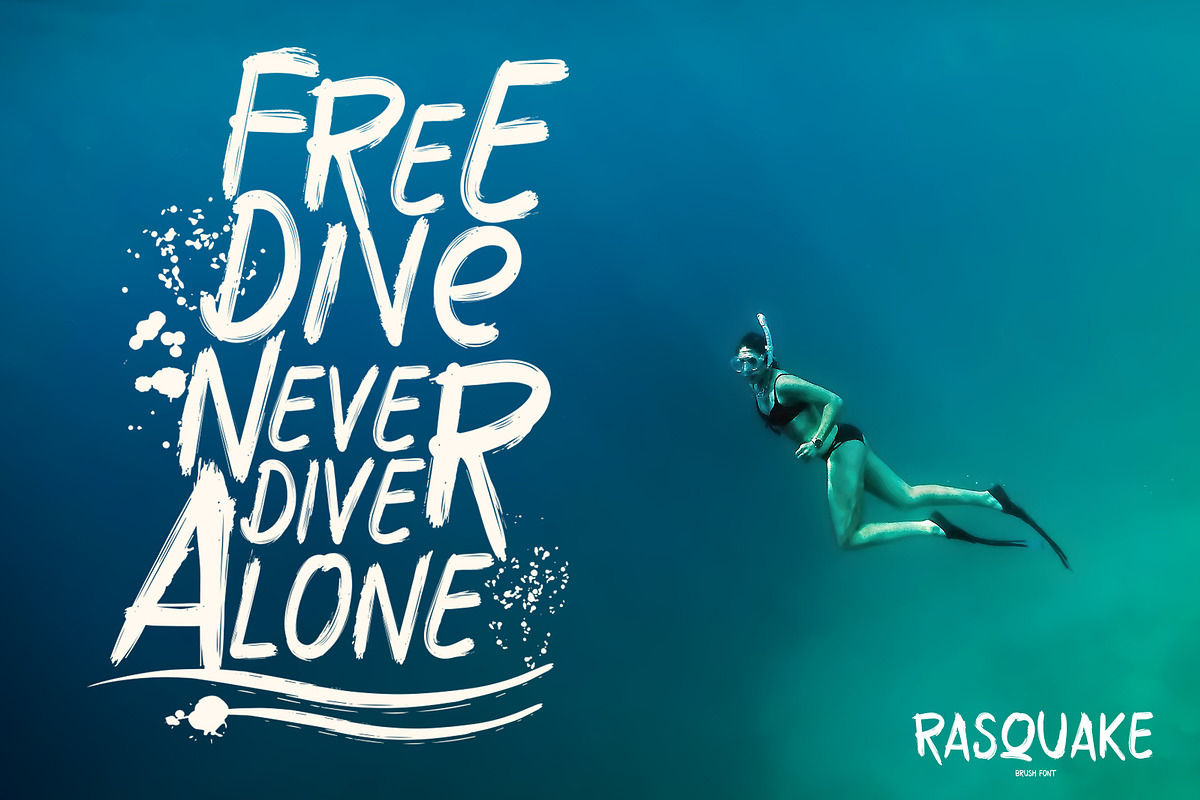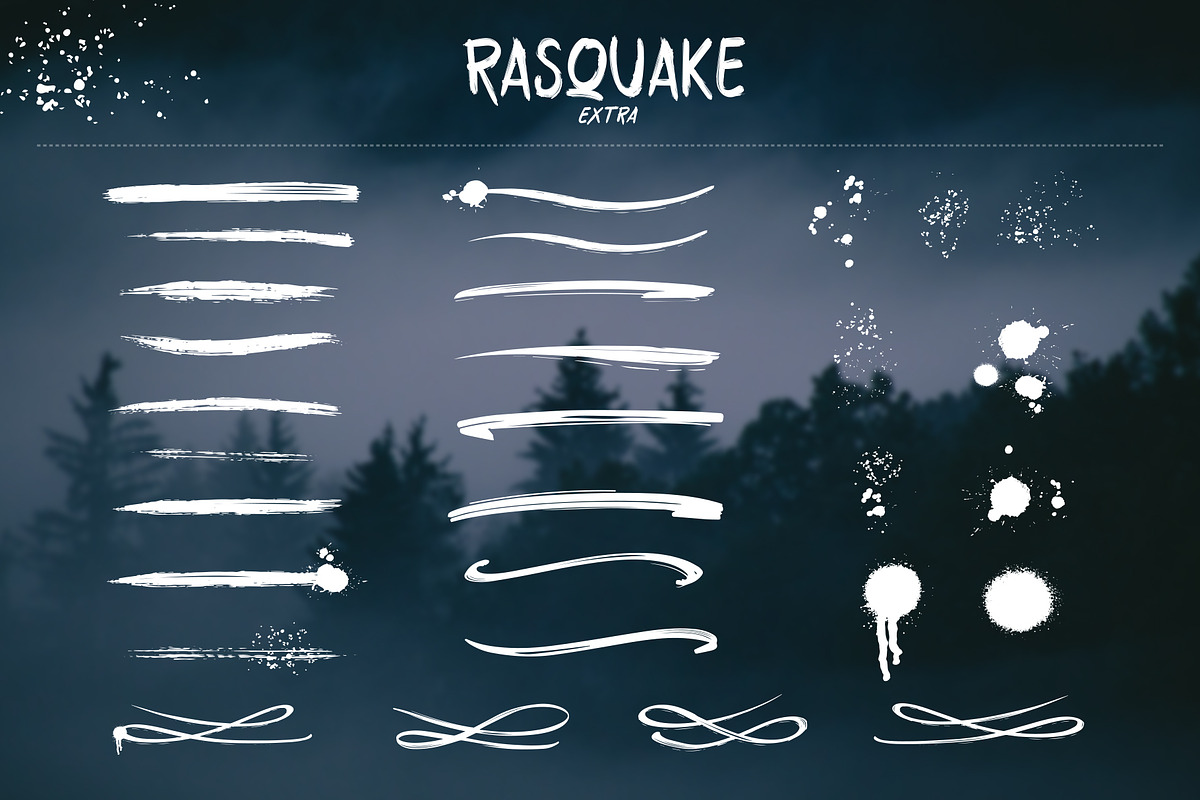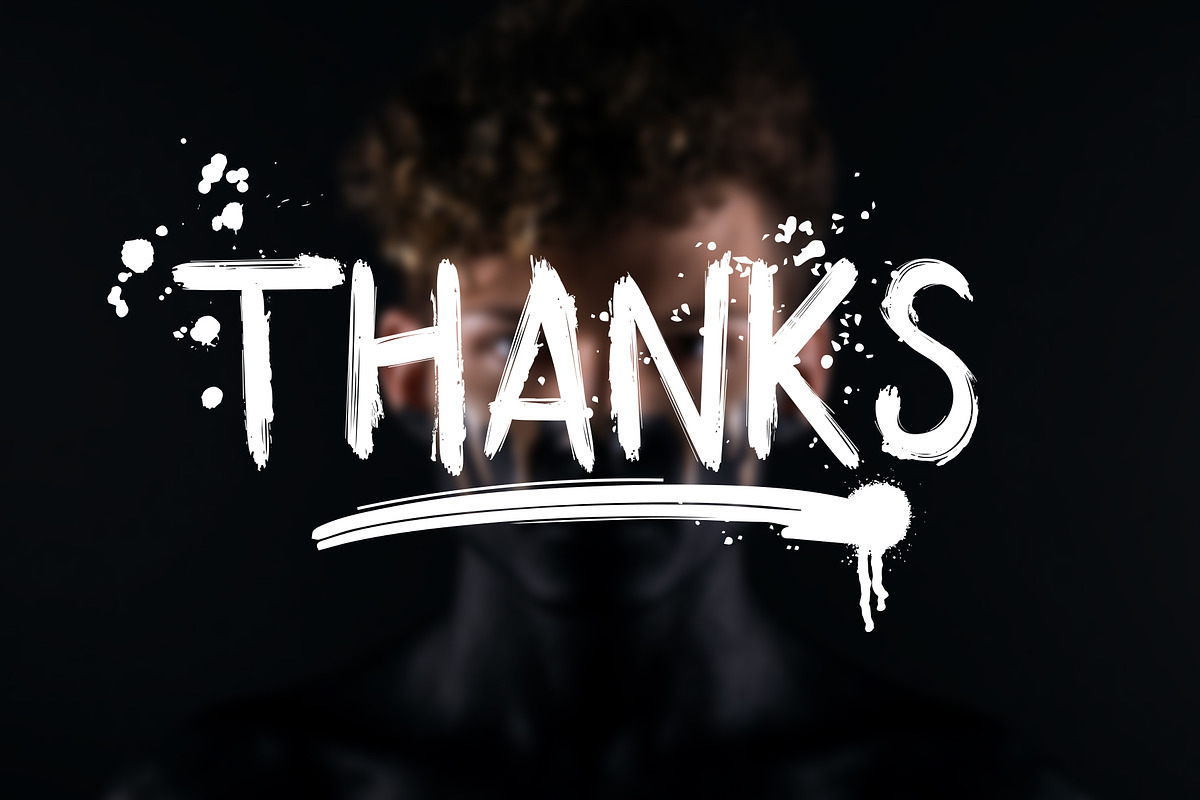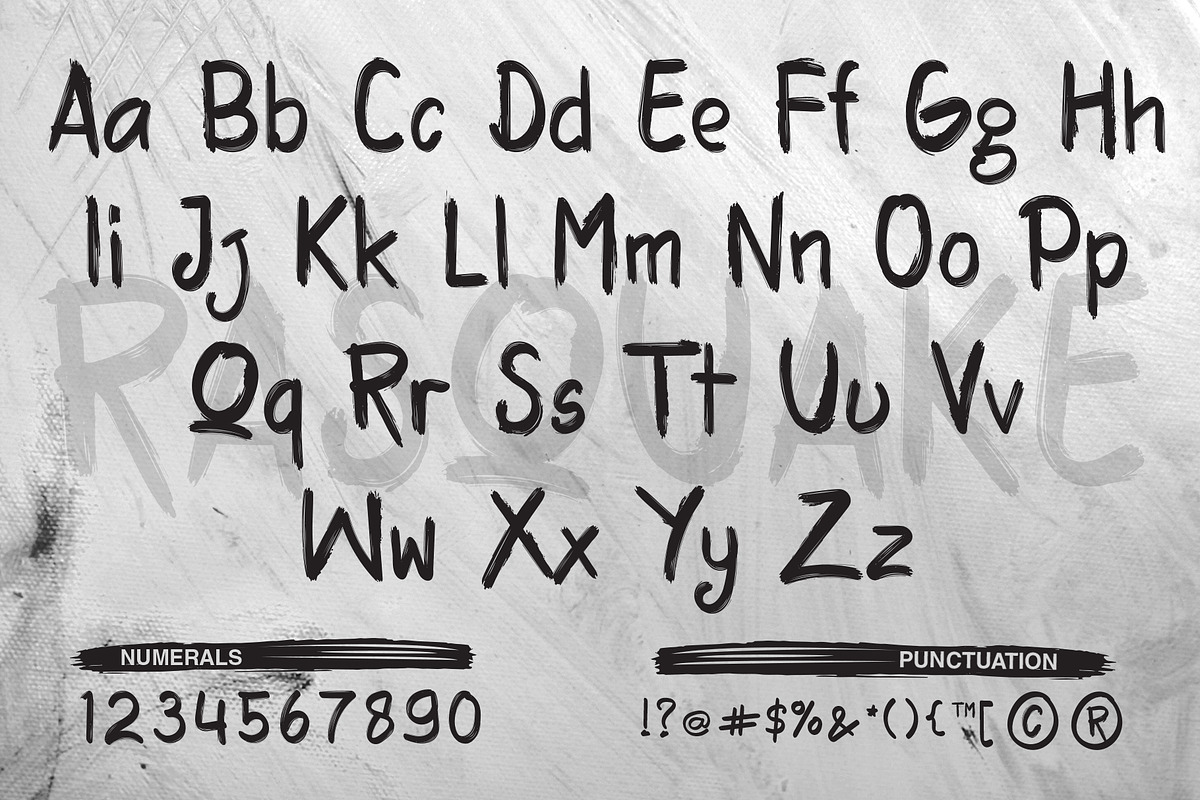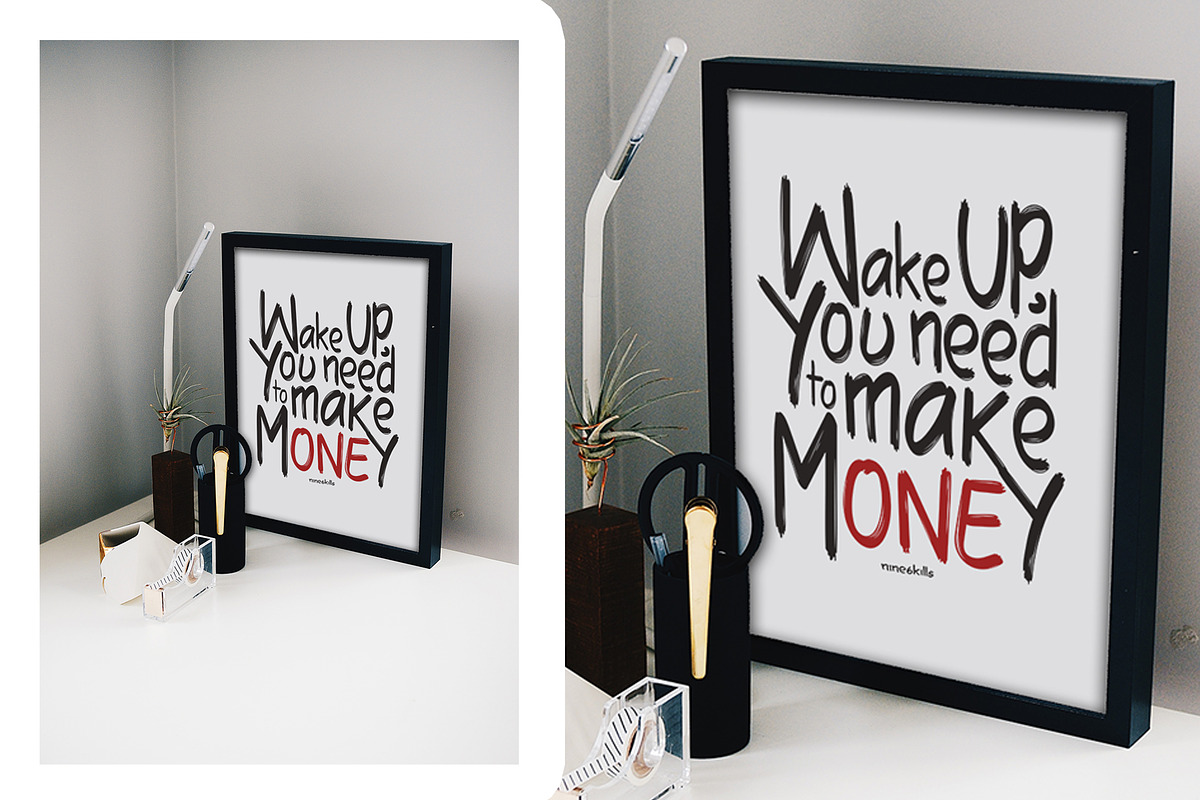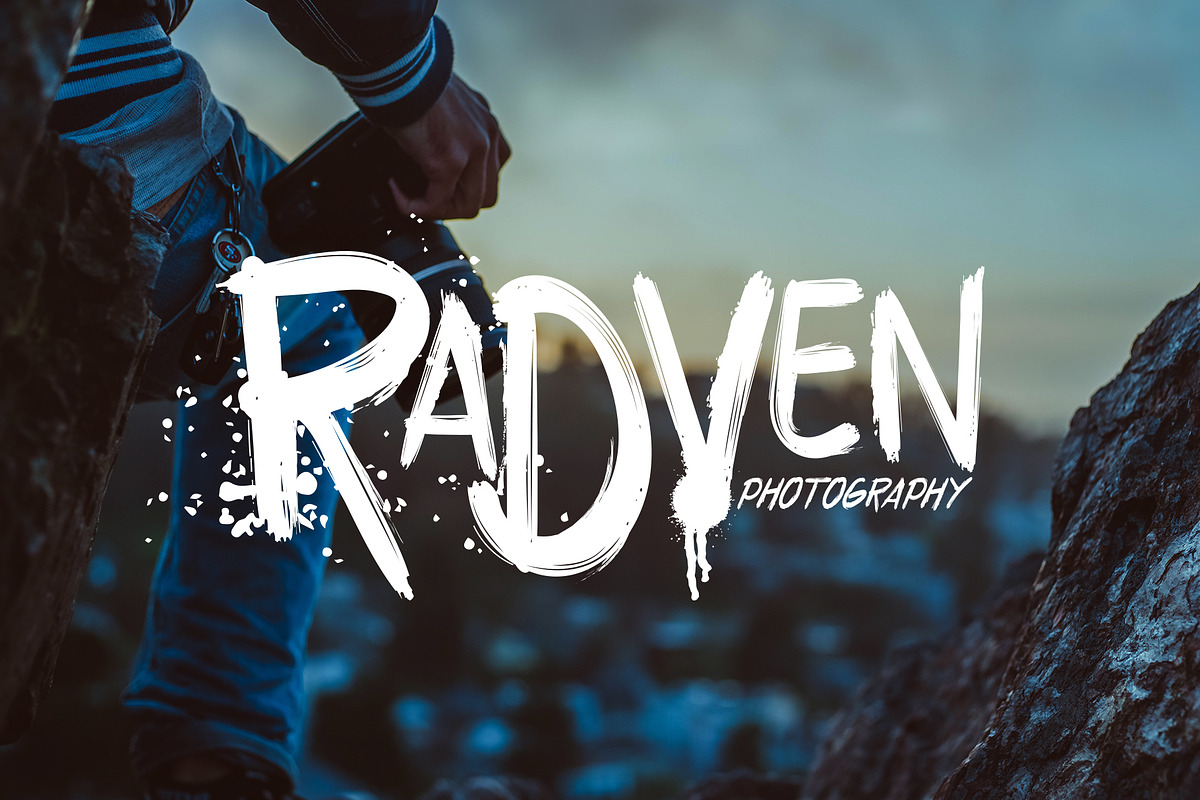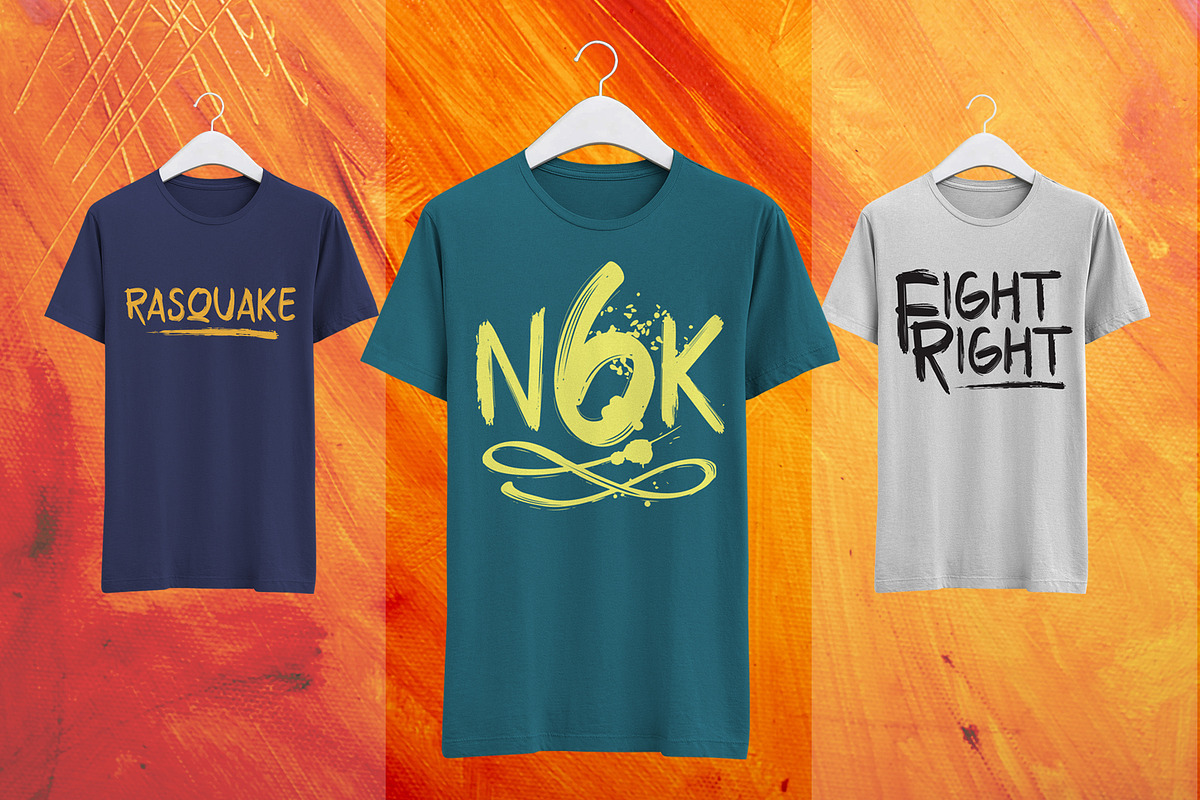
RASQUAKE brush font + EXTRA swashes
RASQUAKE is an strong and attractive font attracting interest to read or see it, Very Quick and Powerful full of energy in submitting a message that is suitable for logo, quotes, branding, t shirt design, or anything which needs a typographic turbo-boost.
This font contains all uppercase, lowercase, numbers and basic punctuation. (If you're having trouble finding the basic punctuation, you can access it in the Glyphs panel)
UPPERCASE and lowercase
Number & basic punctuation
Latin alphabet with Multilanguage support
RASQUAKE brush font + EXTRA swashes by D&K Project fits naturally into Branding, posters, packaging, typography.